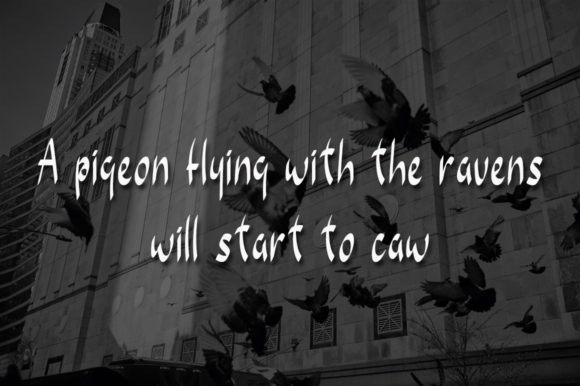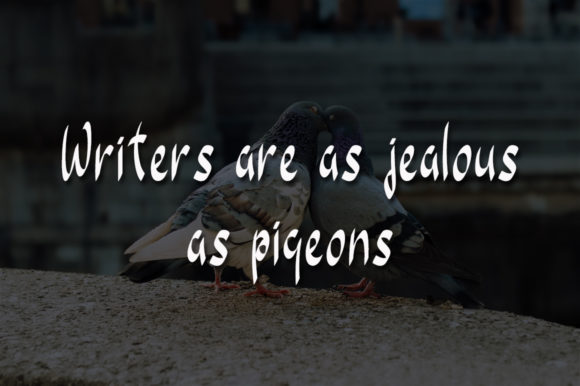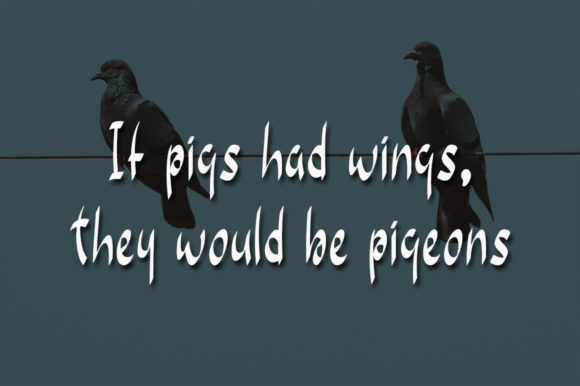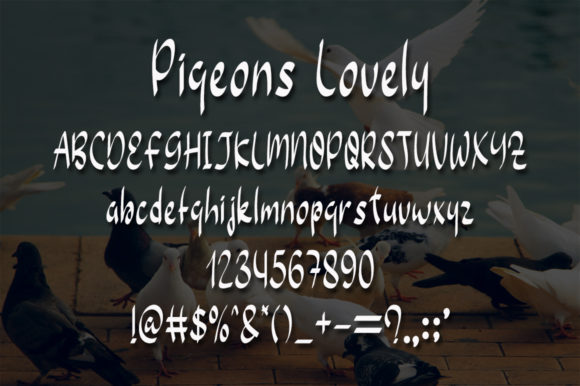
Introduction to Pigeon Lovely Font
As designers, we’ve all been there – stuck on a creative project, searching for that perfect touch to bring it to life. Maybe it’s a wedding invitation, a birthday card, or a social media post that needs a little extra love. Whatever the project, the right font can make all the difference. And that’s where the Pigeon Lovely Font comes in – a sweet and cursive handwritten font that’s sure to add a joyful and romantic touch to your design.
With its gentle, flowing lines and high-quality design, the Pigeon Lovely Font is a valuable resource for any designer looking to add a little extra magic to their projects. Whether you’re working on a design for a transparent background or a creative project that requires a unique touch, this font is sure to deliver. And the best part? It’s available for free download, making it an accessible and versatile design resource for designers of all levels.
Key Features of Pigeon Lovely Font
- High-quality, elegant design perfect for creative projects and designs.
- Comes with a transparent background, making it easy to layer over other design elements.
- Features a clean, modern aesthetic with a mix of geometric and organic elements.
- Supports a wide range of languages and characters, making it a versatile design choice.
Honest Review: Pigeon Lovely Font
I recently stumbled upon the Pigeon Lovely Font, and I must say it’s a lovely addition to any design resource library. This free download has already found its way into my creative project workflow, and I’m excited to share my honest review with you.
- ✨ High quality design: The Pigeon Lovely Font boasts beautiful, detailed lettering that’s perfect for any design project.
- ✨ Transparent background: This feature makes it easy to use the font on any background, ensuring it stands out without looking cluttered.
- ✨ Versatile: The font’s clean design makes it suitable for a wide range of creative projects, from logos to typography-based designs.
- ⚠️ Limited character set: While the font is beautiful, it’s not a comprehensive character set, which may limit its use in certain projects.
- ⚠️ No bold or italic styles: The font only comes in a regular weight, which may not be suitable for designs that require bold or italic text.
Overall, the Pigeon Lovely Font is a great addition to any design resource library. While it has some limitations, its high quality design and transparent background make it a valuable asset for any creative project. I’m excited to continue using it in my future designs.
Pigeon Lovely Font is a versatile and elegant design resource ideal for various creative projects. Its high-quality design and transparent background make it a perfect addition to any design.
Tips for Getting the Most Out of Pigeon Lovely Font
For optimal results, use Pigeon Lovely Font in combination with other high-quality design resources. Experiment with different font sizes and styles to achieve a unique look.
Pigeon Lovely Font is suitable for a wide range of creative projects, including:
- Business cards and branding materials
- Infographics and presentations